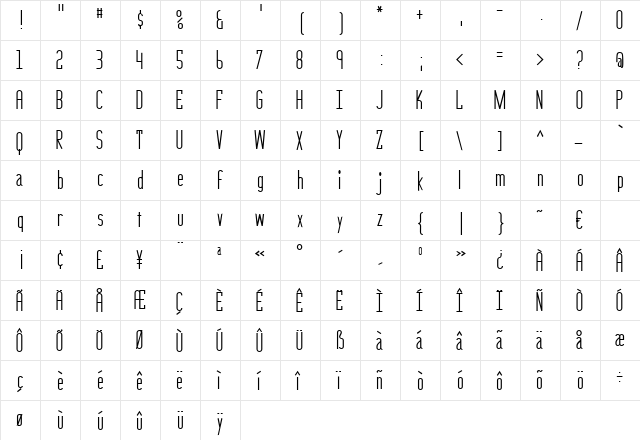
Epigone Regular
Design Context for Epigone Typeface
Epigone offers clean, dependable letterforms without strong stylistic allegiance, making it a practical choice for designers who need flexibility.